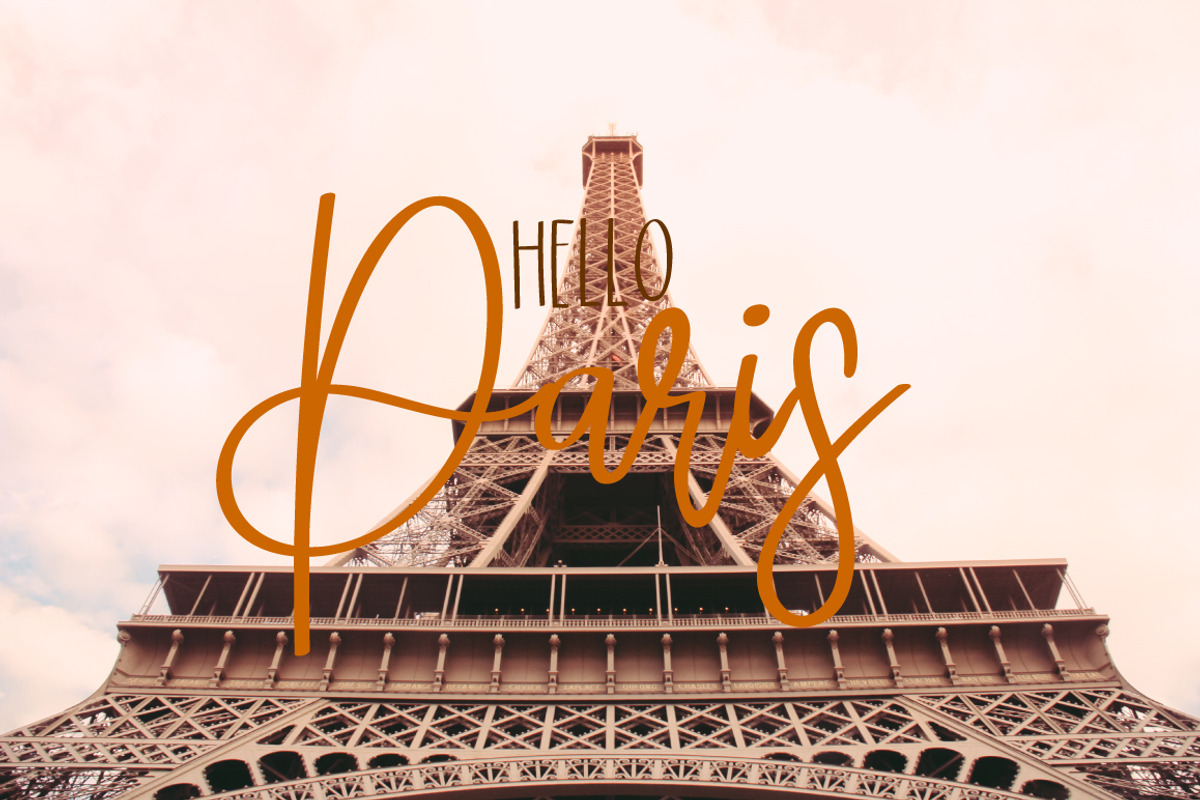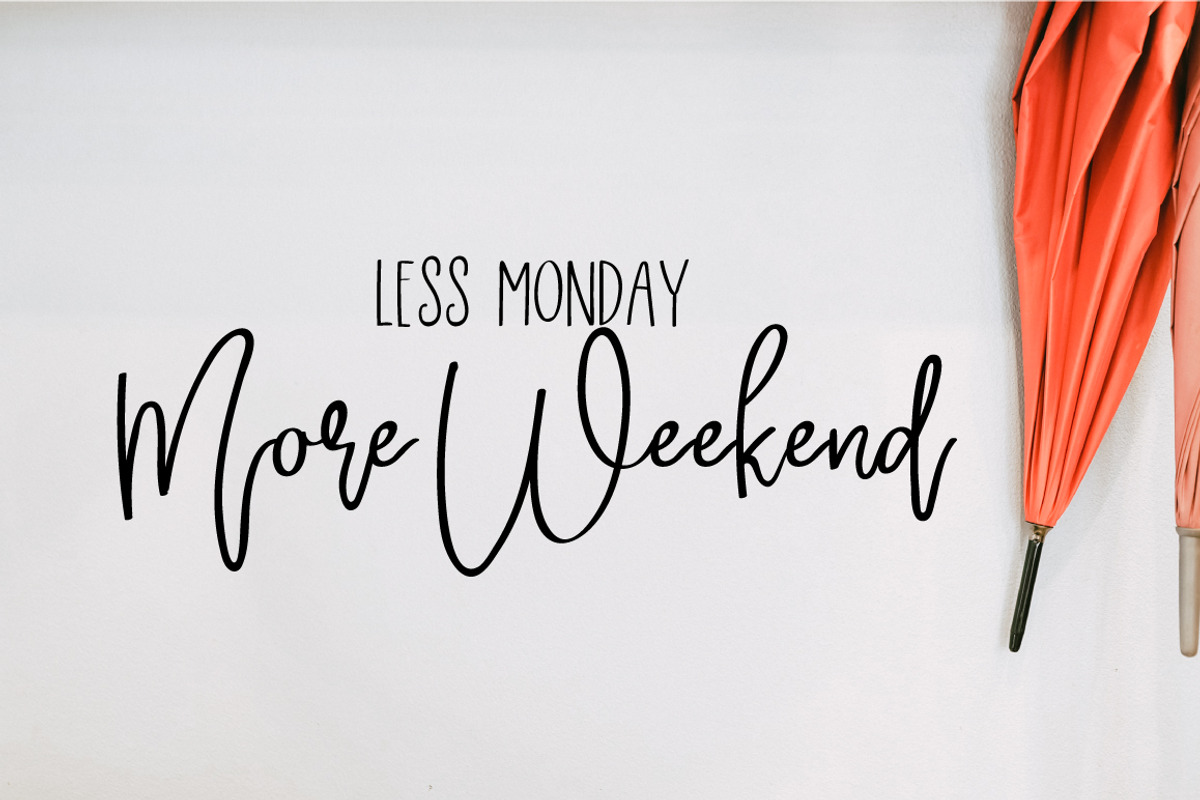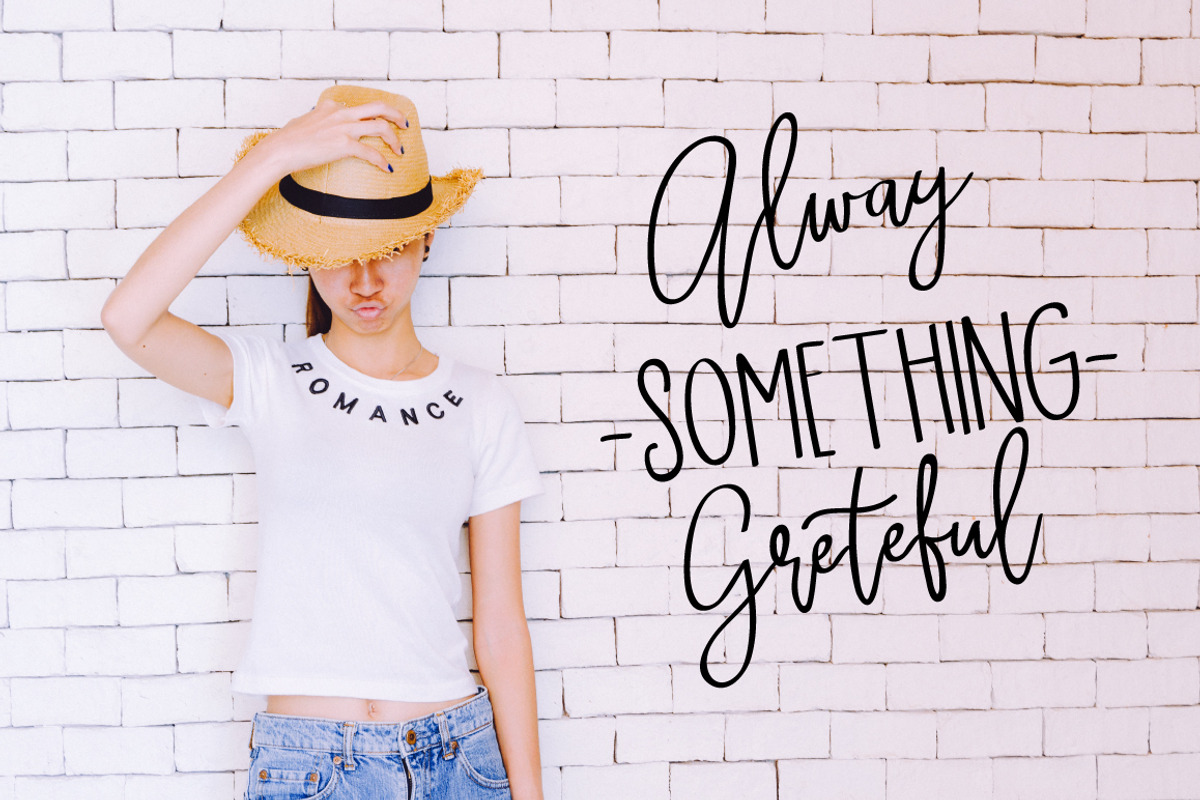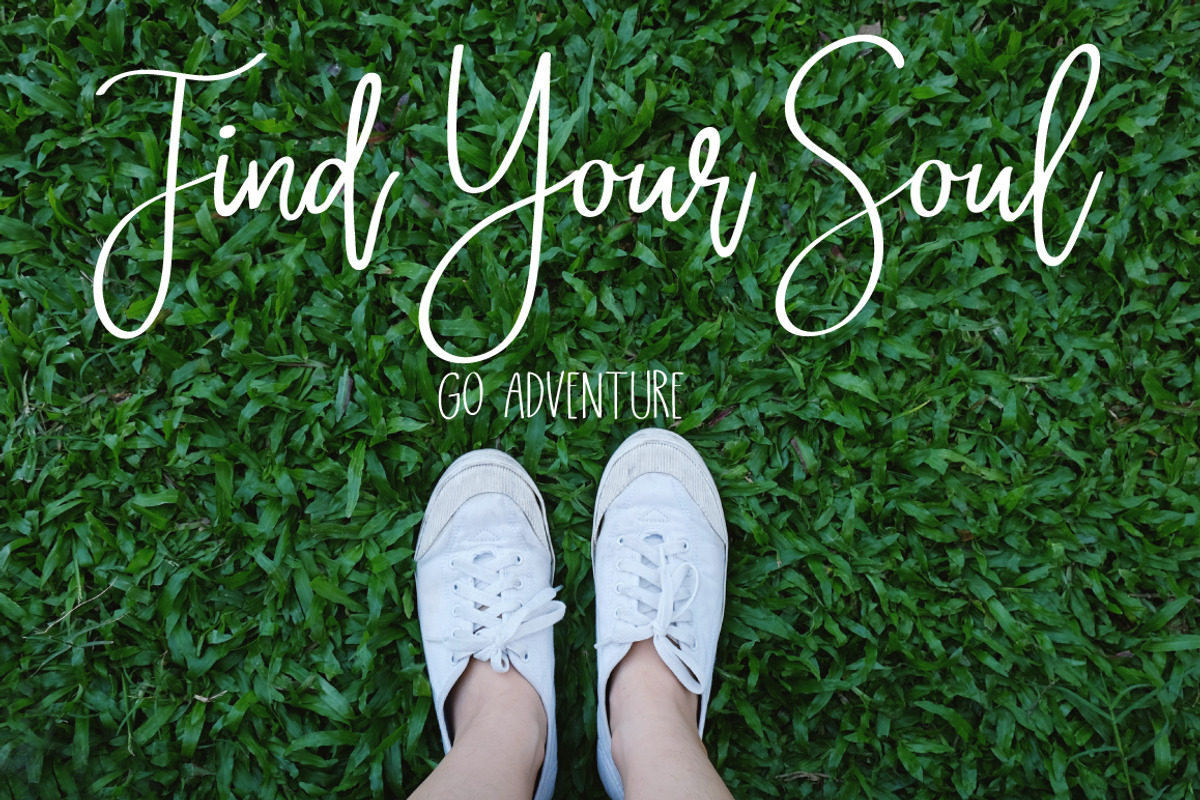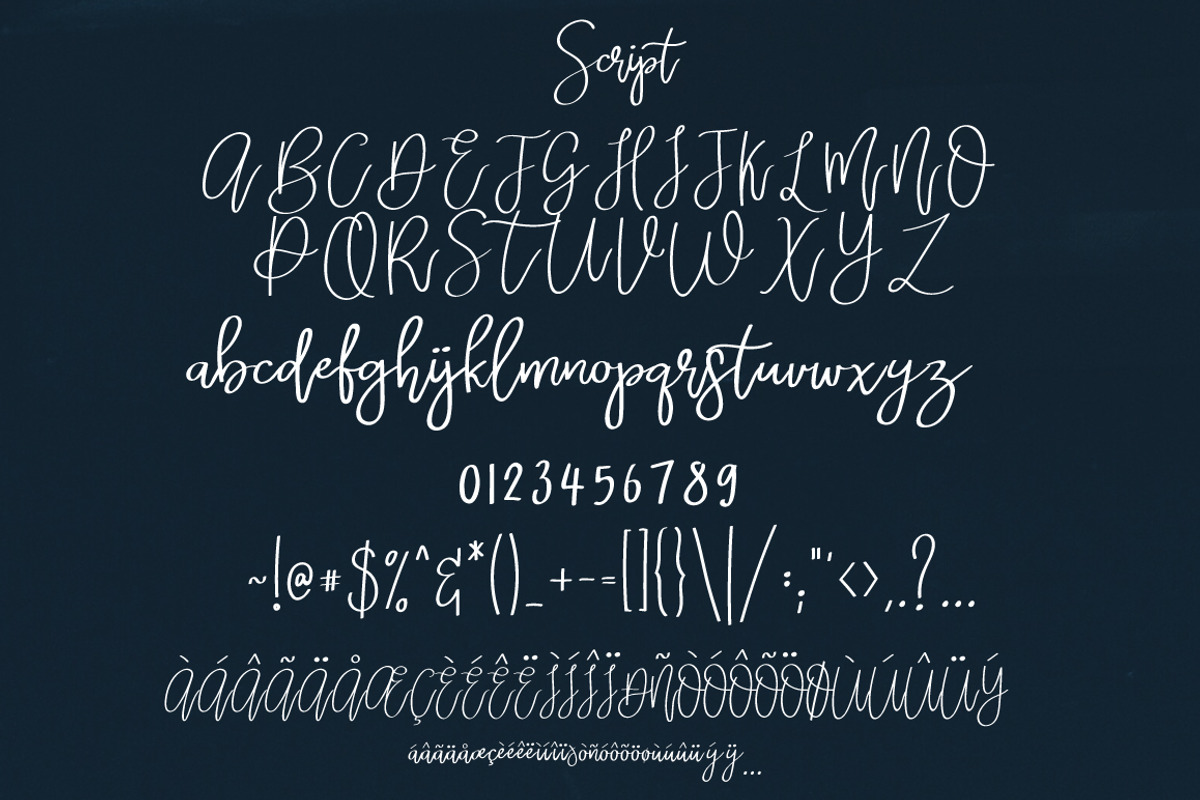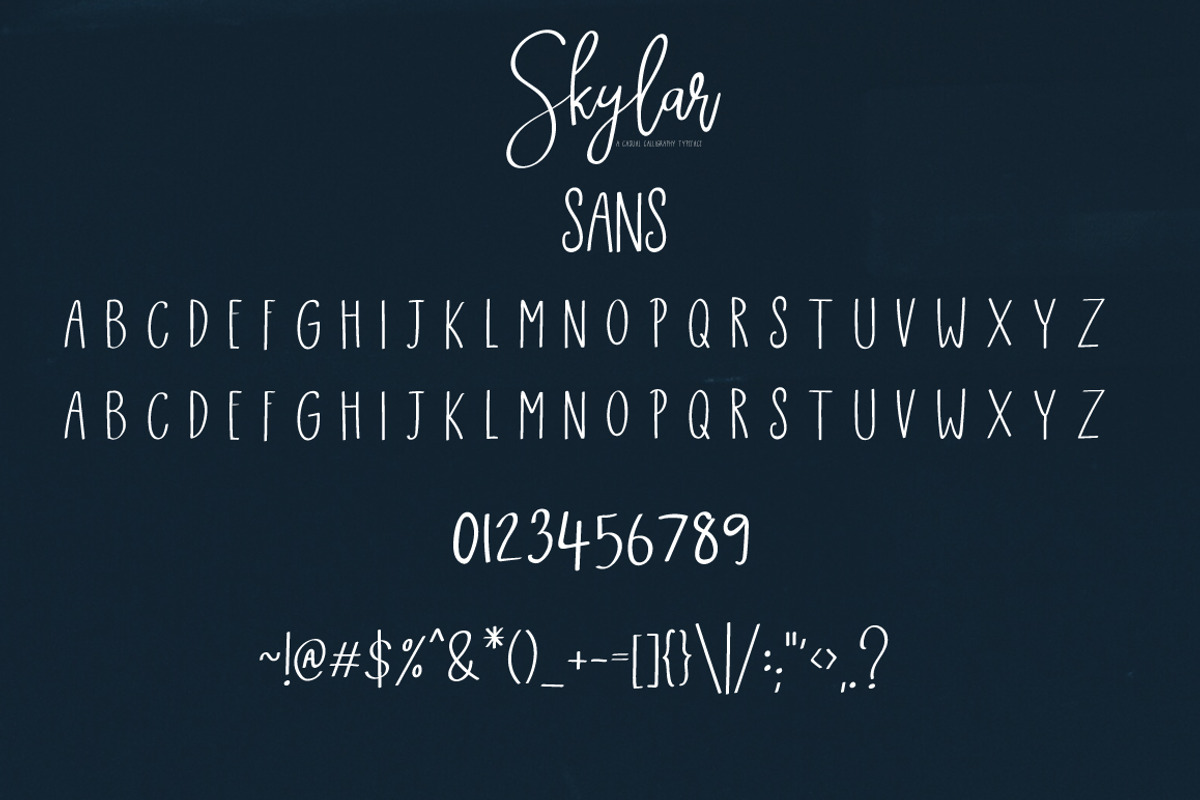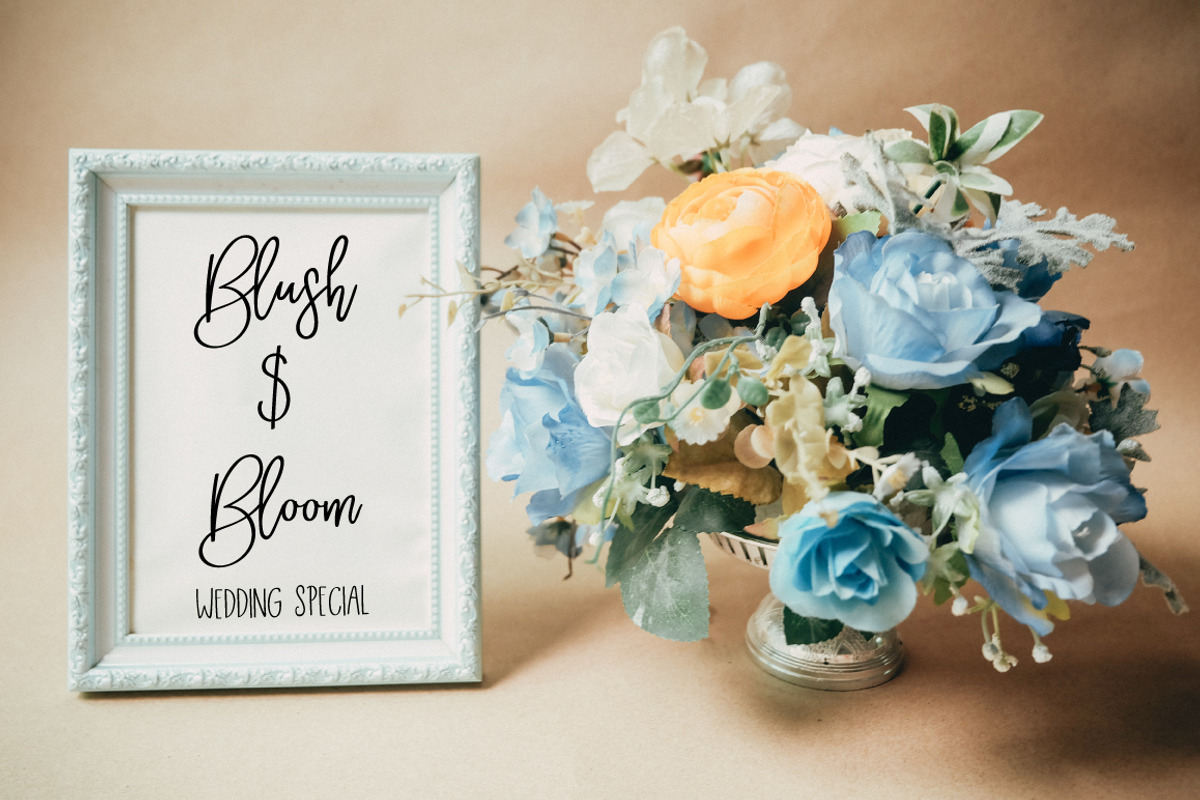
Skylar | Script Font
It is a casual font with a multitude of letter variations to make that perfect and unique design.
This font is perfect for wedding invitation or your blog. Also with their help, you can create a logo or beautiful frame for your home. Or just use for your small business, book covers, stationery and more.
Languages : Dutch, English, French, Galician, German, Spanish, Swedish, Swiss German.